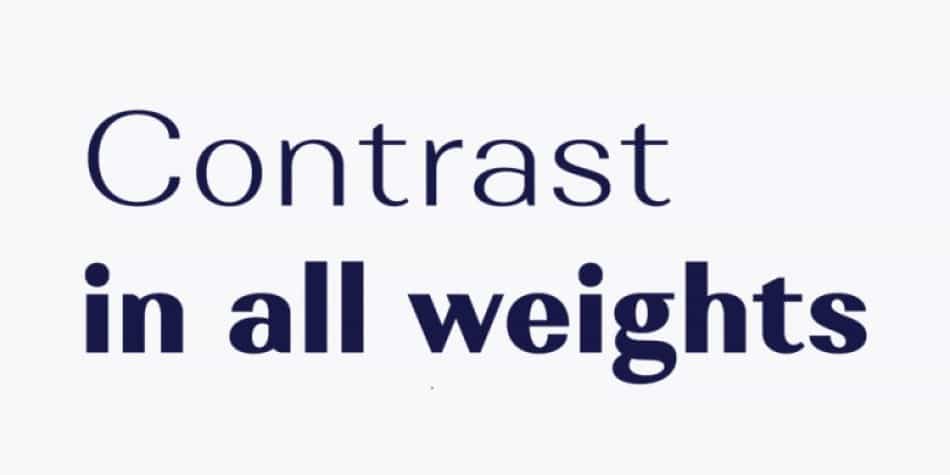
Alethia Next Font is an elegant sans serif typeface designed with high contrast in all weights, intended to serve as an electronic-typeface for display in various editorial projects, such as corporate brochures or magazines as an antidote for serif fonts commonly found today.